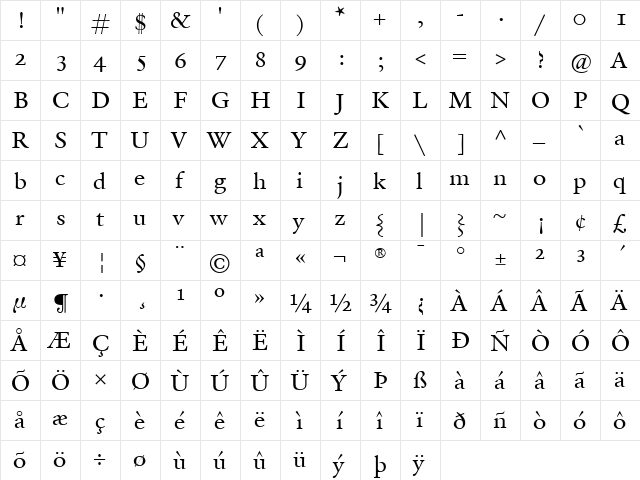
Verdigris MVB TF Regular
Verdigris MVB TF is a composed and adaptable typeface that performs quietly and consistently across a wide range of design contexts.